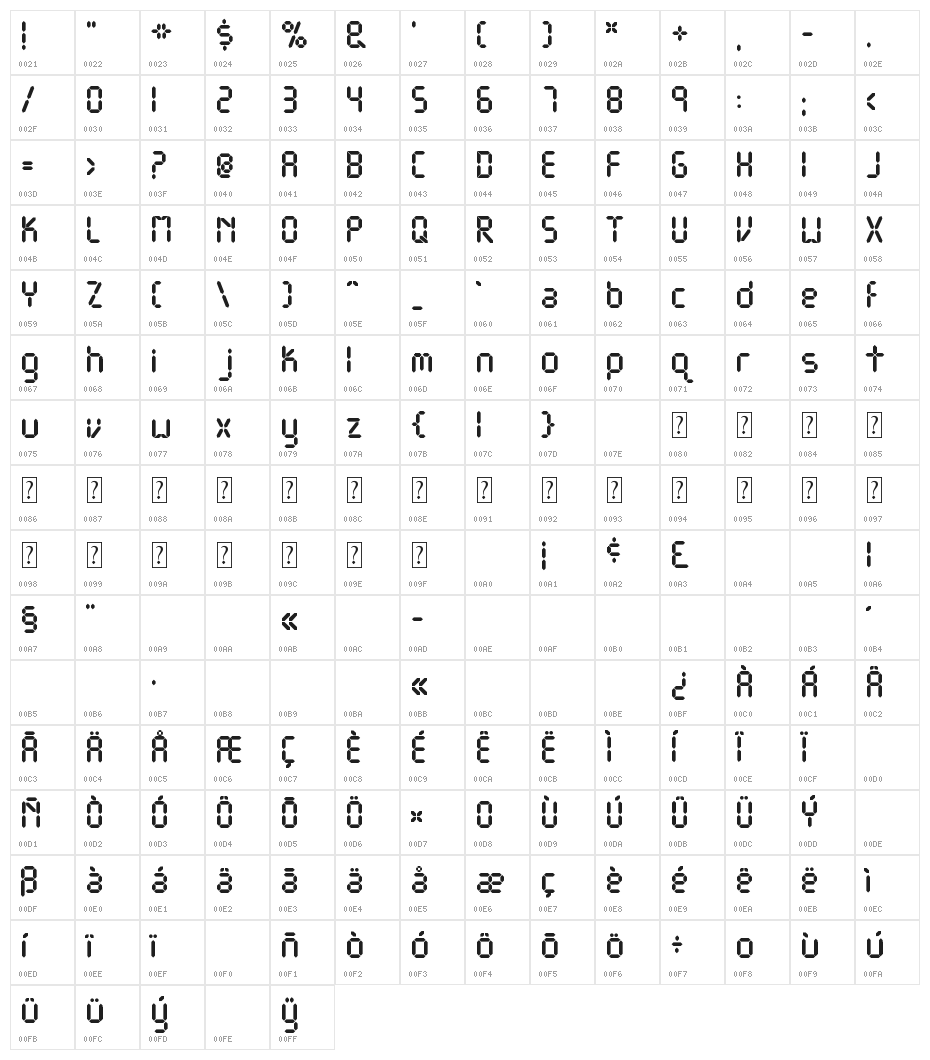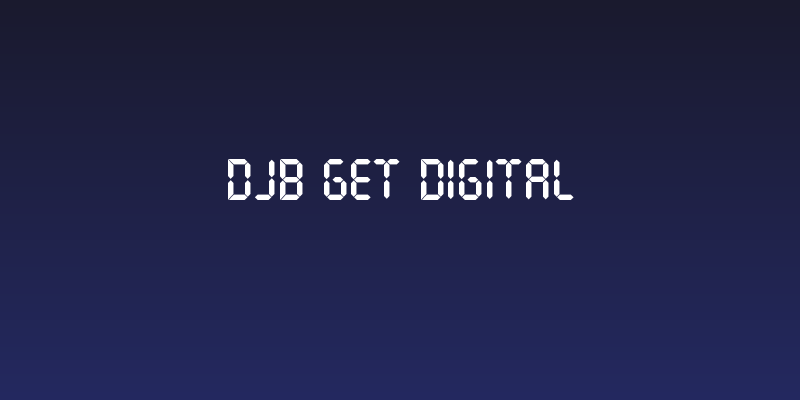
DJB Get Digital Font
| उपयोग का मामला | Headlines, Logos, Digital displays |
| सुझाए गए प्रोजेक्ट | Ideal for digital interfaces, tech-themed posters, video game graphics, and futuristic branding. |